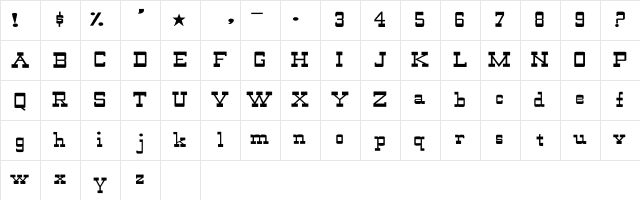
Complete WildWest-Normal Wd Regular glyph index. Displaying only characters natively supported by WildWest-Normal Wd Regular font.
WildWest-Normal Wd is a composed and adaptable typeface that performs quietly and consistently across a wide range of design contexts.